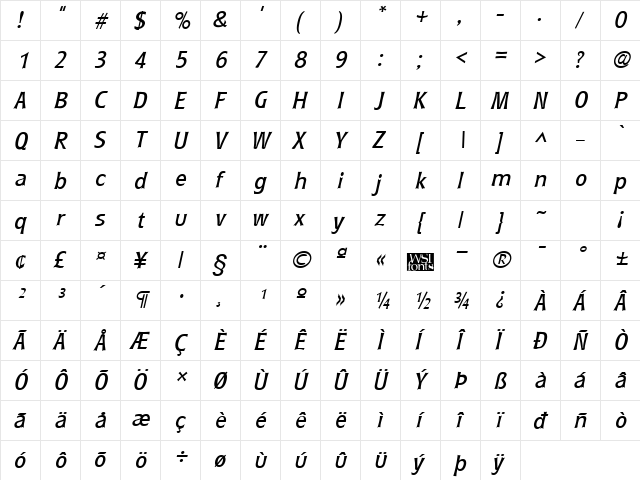
Rynders Italic
Design Context for Rynders Typeface
Rynders takes a measured approach to typography — its balanced proportions and neutral character make it a reliable workhorse for both digital and print work. The slanted form adds forward momentum and visual energy.